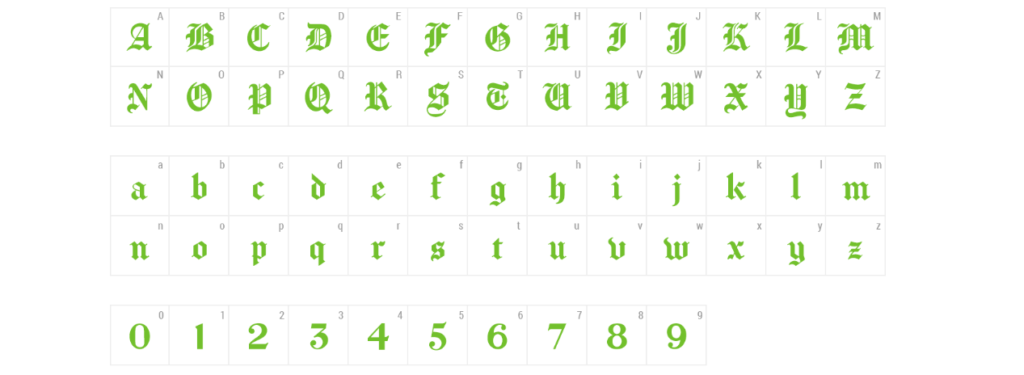
Chomsky Font is important in design and typography because it defines the style and character of creative work. The classes had tuned in this font in particular among designers and typographers because it has a very bold, domineer like aesthetic to it. Chomsky Font’s derived from classic Gothic typeface used in newspaper mastheads and effortlessly adds a professional touch to contemporary design.Â
Chomsky Font has emerged as a favorite typeface for tasks that require newspaper aesthetics combined with high readability and sophistication. Whether you are working on book covers, branding, or editorial designs, this font caters to all preferences with exquisite refinement and elegance.
What is Chomsky Font?
Chomsky Font is a Gothic-style, blackletter typeface designed by Fredrick Brennan. It is heavily inspired by the masthead typography of The New York Times, making it an excellent choice for editorial design, historical themes, and sophisticated branding.
Origin & Inspiration:
- Created by Fredrick Brennan, a designer known for his passion for historic typography.
- Draws influence from blackletter and Gothic newspaper fonts, evoking a sense of tradition and authority.
Type Classification:
- Falls under the blackletter and Gothic typeface category.
- Best suited for projects that need a vintage, formal, or historical touch.
Unique Appeal:
- Offers a blend of old-world charm with modern digital precision.
- Ideal for newspaper-style typography, branding, and artistic projects.
Key Features of Chomsky Font
Why Choose Chomsky Font?
✔ Newspaper Inspired Design – Achieves a magnificent tribute to historic mastheads and takes your designs to the next level with its touch of sophistication and authority.
✔ Bold & Gothic Appeal – The bold and gothic stroke has blackletter elements with classic clearness and intricacy, making it an ideal choice for striking typography.
✔ High-Quality Typography – Meticulously designed to guarantee excellent readability at smaller sizes while still maintaining an impressive visual impact.
✔ Flexible Application -Suits almost any purpose such as publications, digital branding, advertising design, book cover creation, and marketing materials.
✔ Multi-Language Support – All Languages Include – Supports typing of special characters, diacritics, and accented letters which aid in multilingual typography projects.
✔ Timeless & Elegant Aesthetic – With it’s fine tailoring to modern usability blended with stunning historical charm, serves as an elegant combination for projects that have a classic touch to sophisticated designs.
✔ Ideal for Branding and Editorial Purposes – It’s audacious and commanding nature gives it great suitability for the creation of logos, newspaper like titles, and for upscale branding.
Applications of Chomsky Font
Where can you use Chomsky Font?
✔ Newspaper & Editorial Design – Perfect for headlines, articles, and mastheads, capturing the essence of traditional newspaper typography.
✔ Book Covers & Titles – Adds a historical, gothic, or fantasy-inspired aesthetic to novels, history books, and academic publications.
✔ Logos & Branding – A great choice for luxury brands, law firms, antique stores, and classic-themed businesses looking for a sophisticated and authoritative identity.
✔ Posters & Flyers – Enhances promotional materials with a vintage or authoritative touch, making it ideal for theatrical posters, political campaigns, and event branding.
✔ T-Shirts & Merchandise – Works well on custom apparel, mugs, tote bags, and other promotional products, giving them a unique and bold look.
✔ Social Media Graphics – Ideal for YouTube thumbnails, Instagram posts, and Facebook banners, especially for content related to history, politics, literature, and journalism.
✔ Website & UI Design – Can be used for news portals, historical blogs, and digital magazines, adding a distinctive and professional touch to online content.
✔ Tattoo Design – The gothic and blackletter elements make it a popular choice for script-based tattoo designs with a classic or medieval touch.
✔ Video Editing & Motion Graphics – A strong option for title sequences, lower thirds, and documentary captions, especially for historical or journalistic themes.
Conclusion: Chomsky Font
The Chomsky Font will be especially useful to designers looking for a goth and newspaper-inspired look. Chomsky’s font has a bold and eye-catching style which makes it suitable for editorial book design, branding, and even marketing collateral. This typeface never fails to impress and delivers a powerful visual impact and professional appeal. Chomsky font has a sophisticated charm that is both modern and historic.